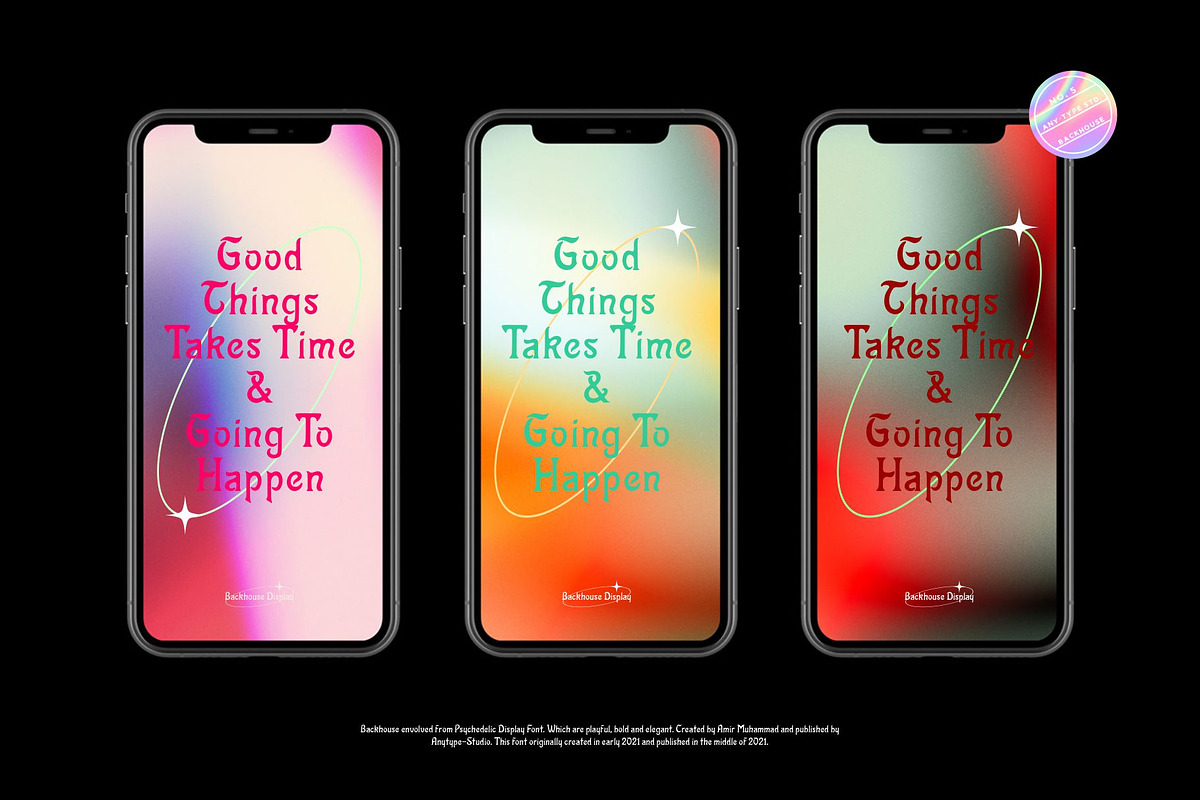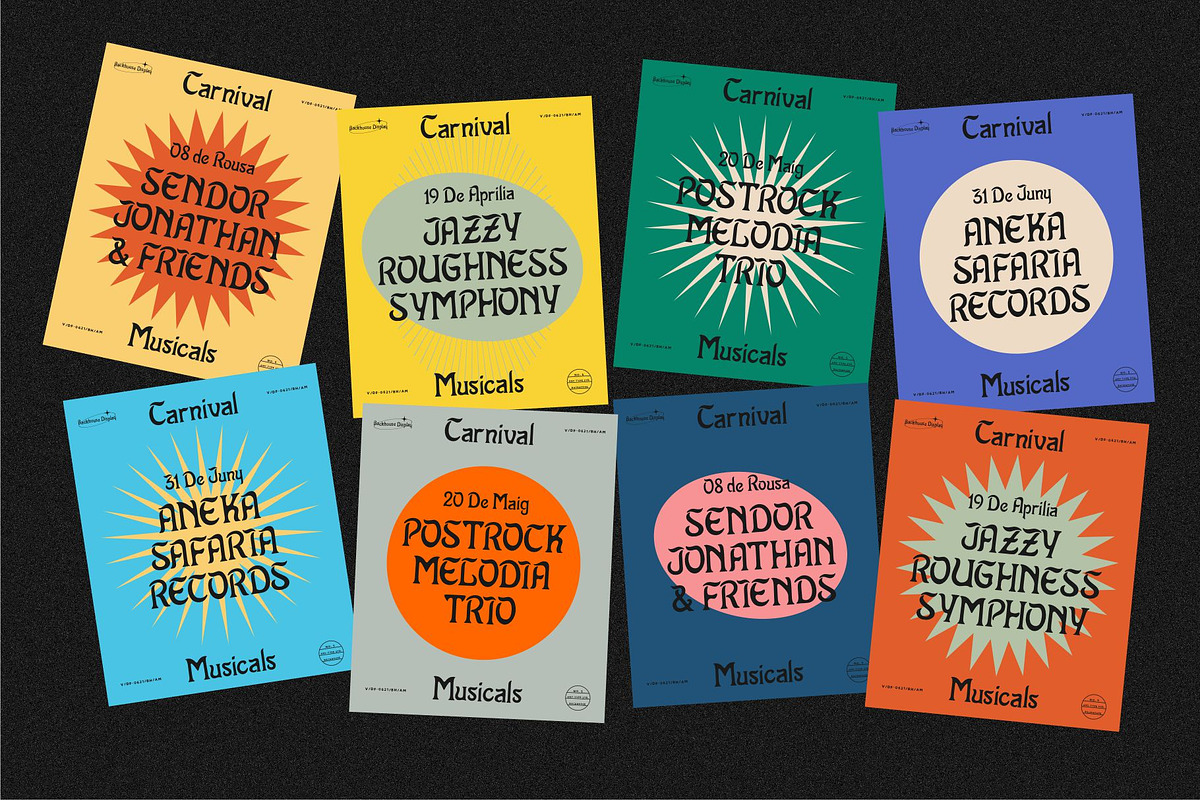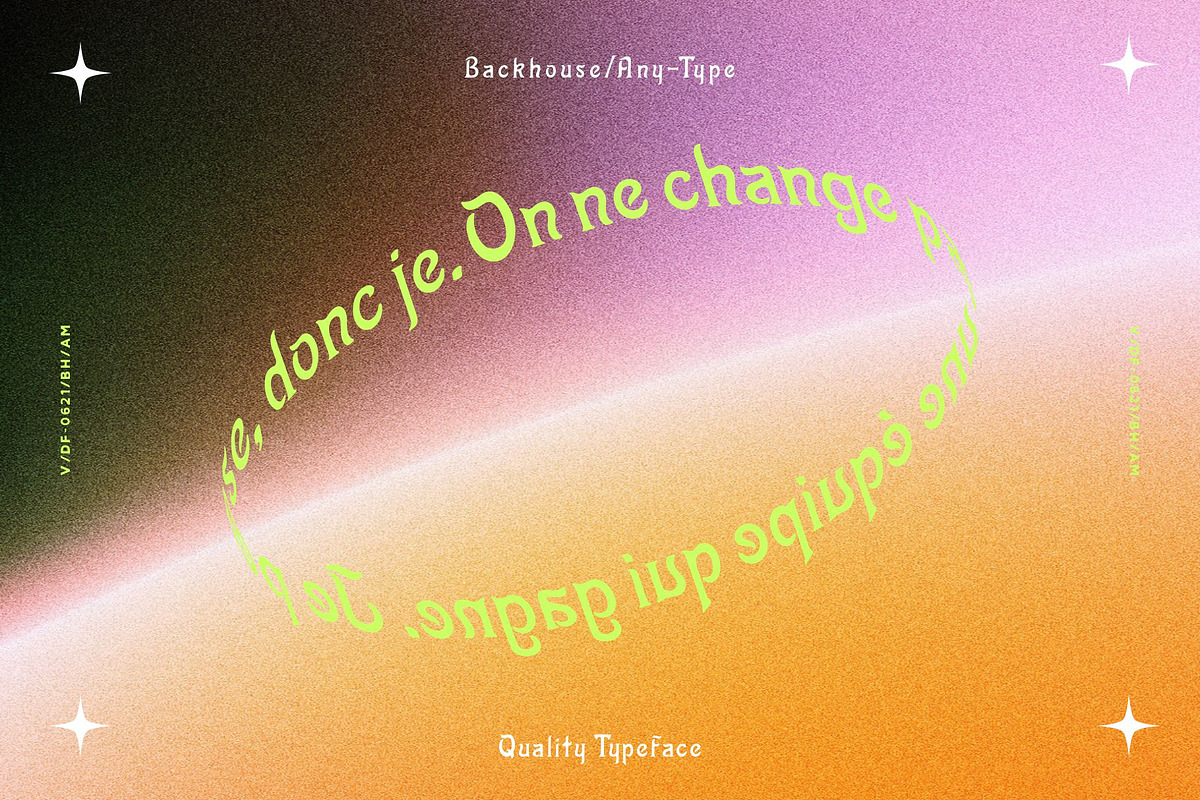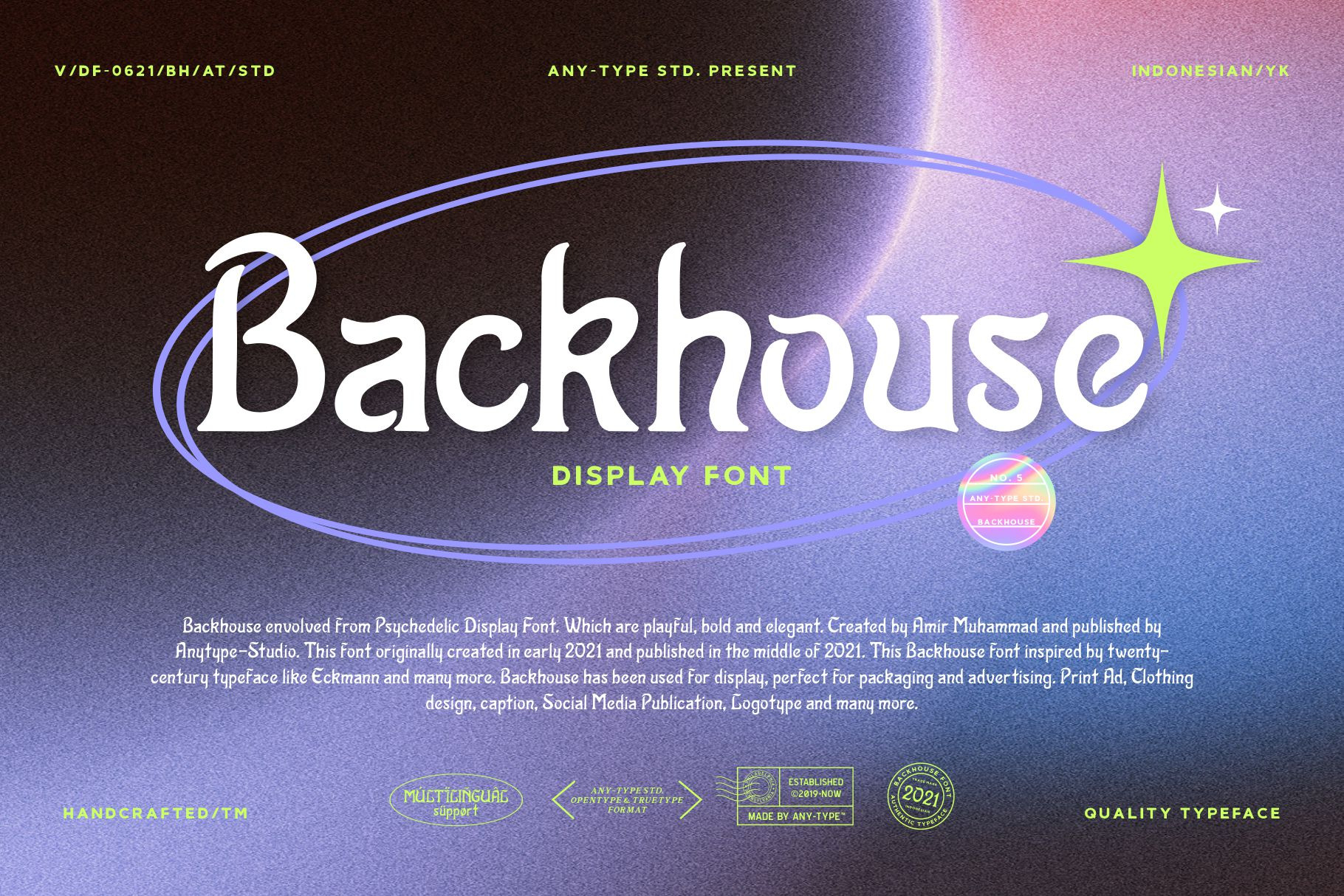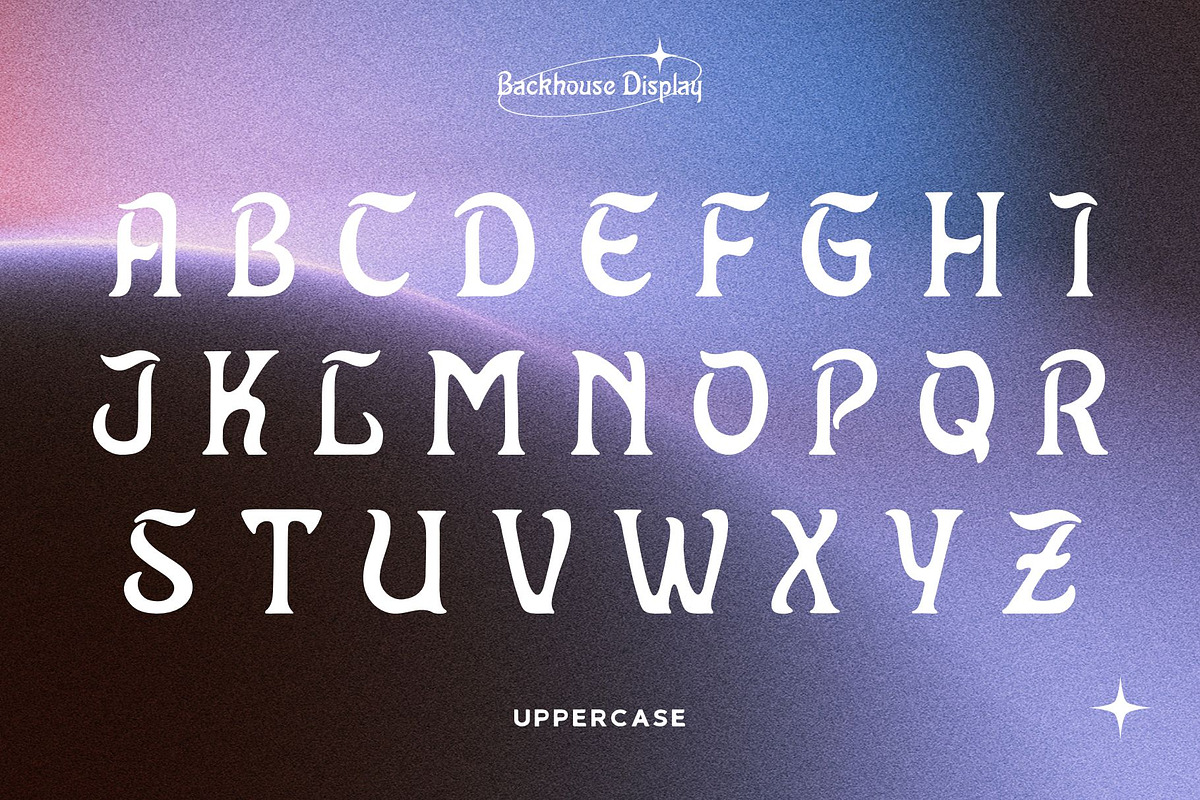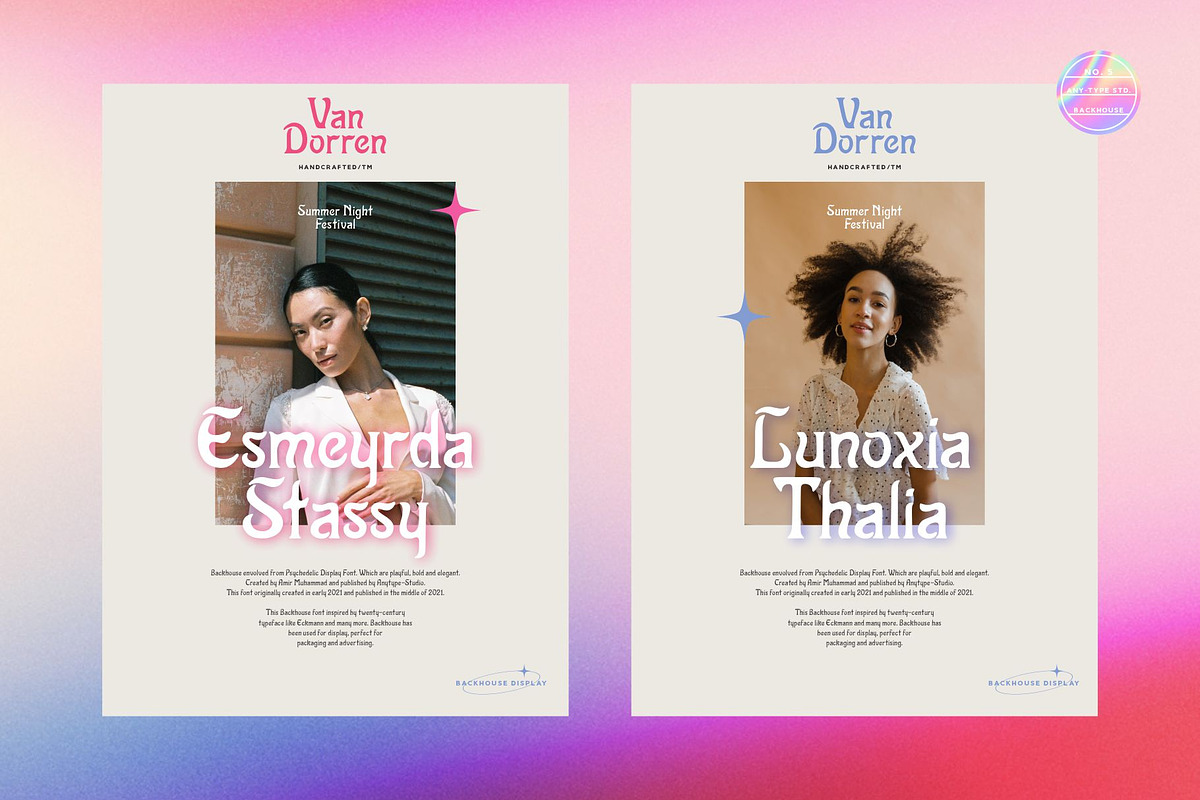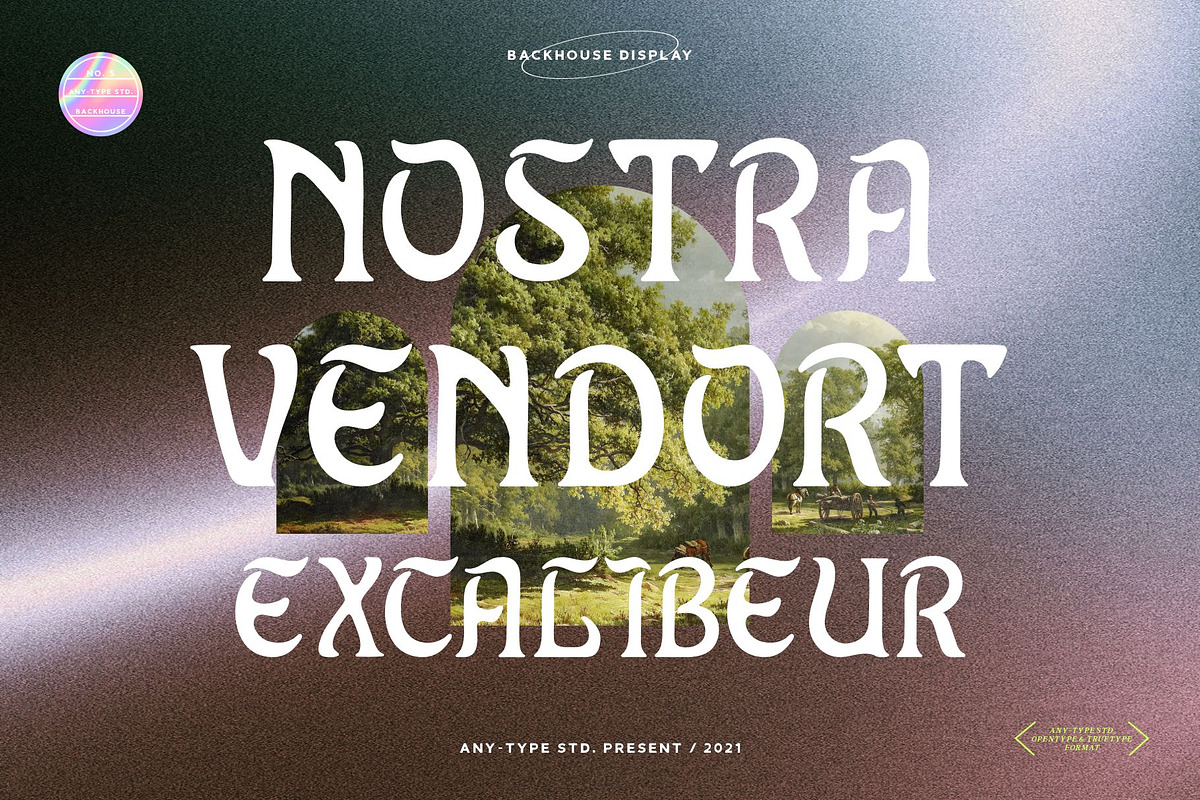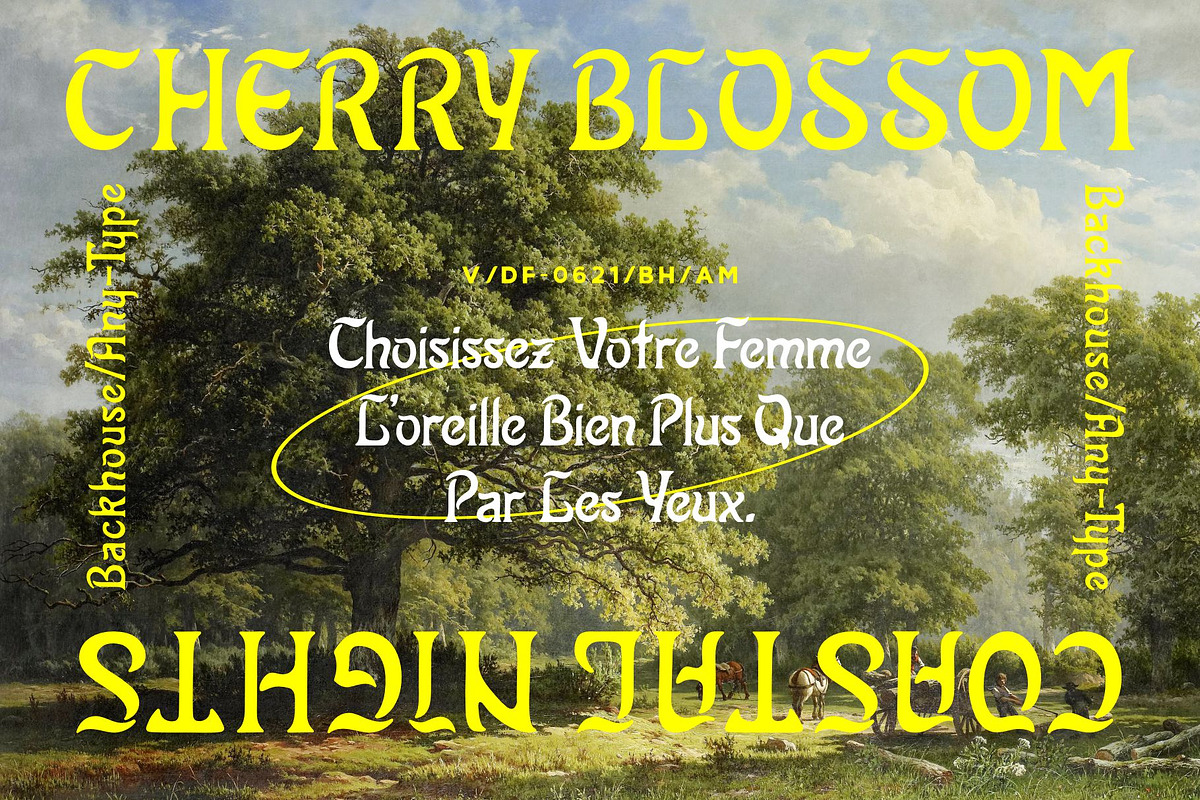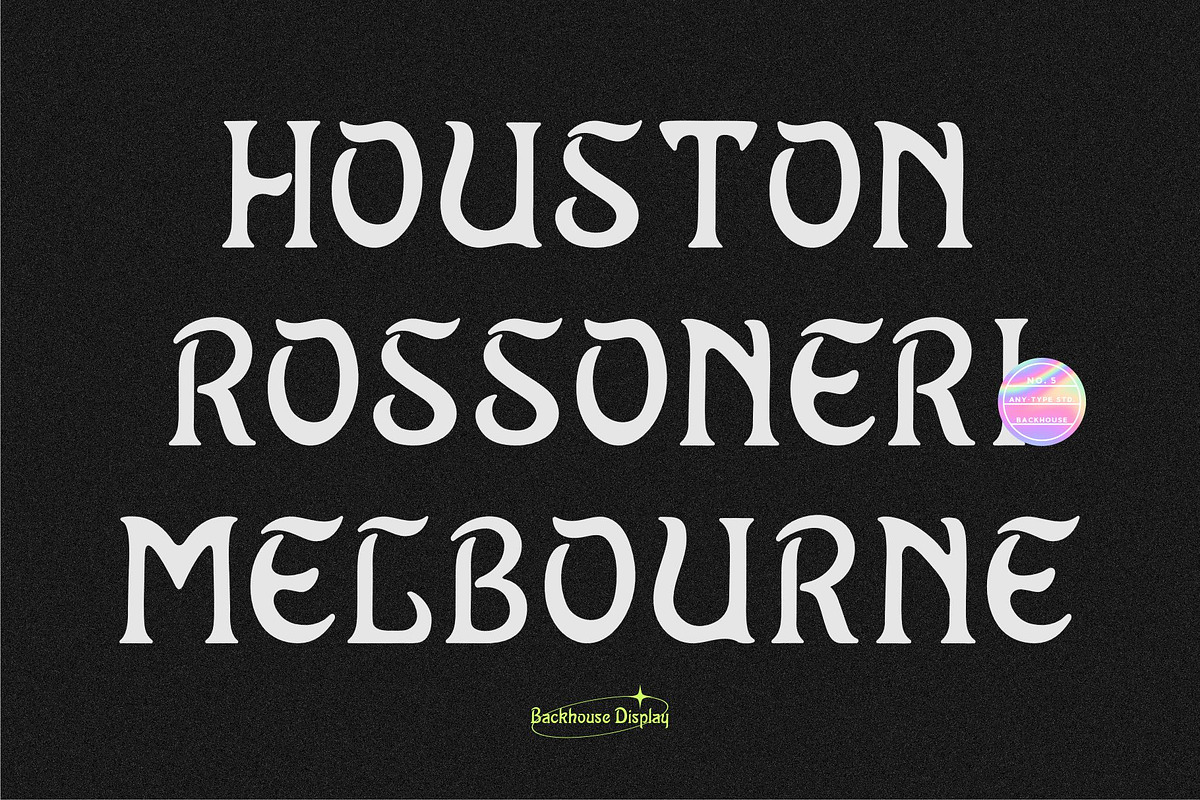
Backhouse Display Font
Backhouse envolved from Psychedelic Display Font. Which are playful, bold and elegant. Created by Amir Muhammad and published by Anytype-Studio. This font originally created in early 2021 and published in the middle of 2021. This Backhouse font inspired by twenty-century typeface like Eckmann and many more. Backhouse has been used for display, perfect for packaging and advertising. Print Ad, Clothing design, caption, Social Media Publication, Logotype and many more.